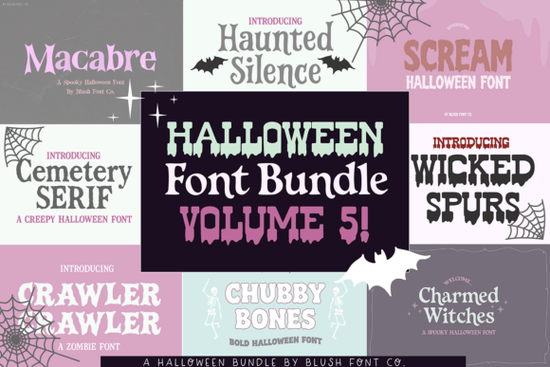
If you're looking for fresh, well-designed Halloween fonts that actually work across different projects like printable party invites, Cricut-cut vinyl shirts, or Instagram story graphics the Halloween Bundle Volume 5 Font is a straightforward, practical choice. It’s not just another collection of “spooky” fonts slapped together. This bundle includes 8 new typefaces, each with clear licensing for commercial use (including Print-on-Demand), and they’re all optimized for both digital design software and cutting machines.
What’s actually in the bundle?
Unlike bundles where half the fonts are barely usable outside of headlines, these 8 fonts were selected for real-world versatility. You’ll find:
- A sharp, high-contrast serif with subtle bone motifs great for elegant event signage or boutique packaging
- A chunky, uneven sans-serif inspired by vintage carnival banners works well on tote bags and yard signs
- A playful, slightly wobbly script that mimics hand-drawn candy labels ideal for treat bag tags or cupcake toppers
- A jagged, distressed display font with layered textures perfect for posters or social media banners where impact matters more than readability at small sizes
- Two monoline options: one clean and modern (for minimalist merch), one with delicate bat-wing terminals (for greeting cards)
- A retro-futuristic typeface with asymmetrical letterforms surprisingly flexible for both kids’ party decor and edgy apparel
All fonts include uppercase, lowercase, numerals, punctuation, and basic multilingual support (Latin-1). Most come with alternate characters and ligatures handy if you’re designing logos or custom word art in Adobe Illustrator or Affinity Designer.
Where do these fonts work best and where should you avoid them?
These fonts shine in medium-to-large applications: t-shirt prints, SVG cut files for iron-on transfers, large-format posters, and social graphics sized for Instagram feed or Pinterest pins. They’re less ideal for body text in long-form printables (like party planning checklists) or tiny QR code labels stick to simpler, highly legible fonts there.
One thing worth noting: two of the fonts include texture overlays baked into the glyphs (not as separate layers). That means they’ll export cleanly from Canva or Silhouette Studio, but won’t let you recolor individual strokes in vector editors unless you convert to outlines first. Not a dealbreaker just something to keep in mind if your workflow relies heavily on editable paths.
Are they beginner-friendly?
Yes if you’ve used fonts before in Cricut Design Space, Procreate, or Photoshop, you’ll be up and running in minutes. Each font file is clearly named (e.g., “Holloway-Bold.otf”, “Gravestone-Sketch.ttf”), and the download includes a PDF cheat sheet showing sample words, suggested pairings, and common use cases. No technical jargon, no hidden extras to install.
You can also preview every font live on Creative Fabrica before buying. Try typing “Boo!”, “Trick or Treat”, or your shop name to see how letters connect and scale. If you’re unsure, start with the two most versatile: the clean serif and the playful sans. They cover 80% of typical Halloween projects right out of the gate.
For reference, here are the eight fonts included, linked directly to their Creative Fabrica search pages: Holloway Font, Gravestone Sketch Font, Crypt Sans Font, Bone Chiller Serif Font, Zombie Doodle Script Font, Phantom Caps Font, Jack O’Lantern Display Font, and Midnight Carnival Font.